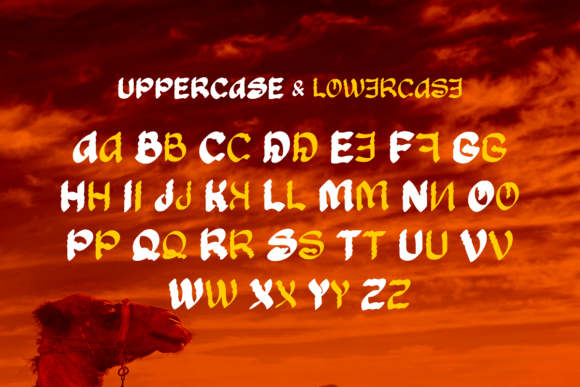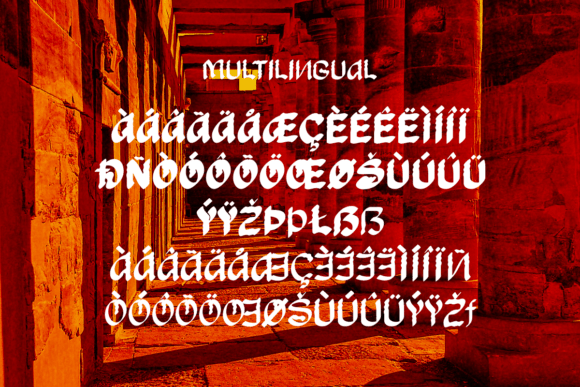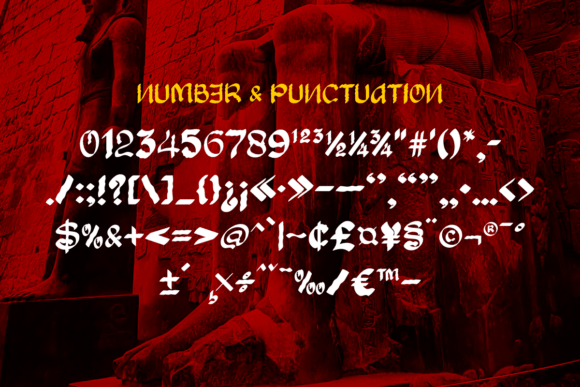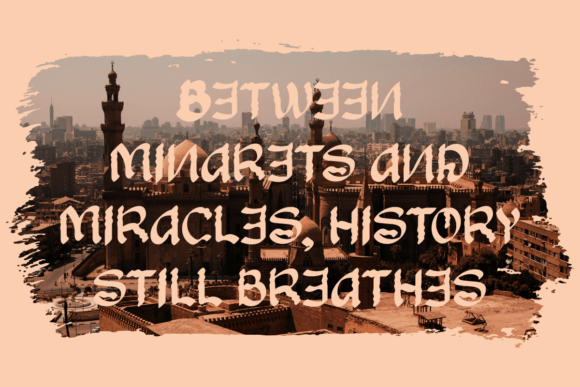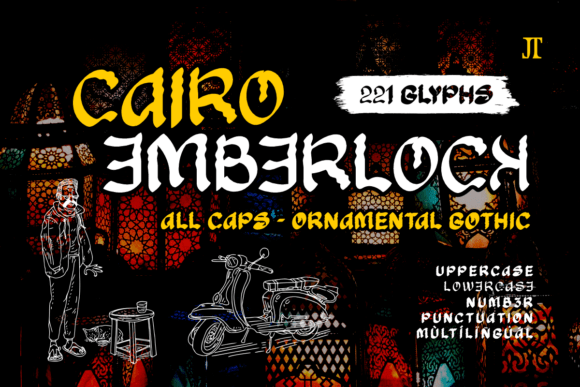
Cairo Emberlock Font: Unleash the Mystique of Ancient Egypt in Your Designs
Are you a designer seeking a font that embodies the essence of mystique and power? Look no further than Cairo Emberlock, a bold ornamental Gothic display font that combines the allure of ancient Egypt with modern experimental flair. In this article, we’ll delve into the unique features of Cairo Emberlock and explore its endless possibilities in various design applications.
The Inspiration Behind Cairo Emberlock
Cairo Emberlock is more than just a font – it’s an experience. Inspired by the rich history and mystique of Egypt, this typeface brings the ancient desert character to life. The designers behind Cairo Emberlock aimed to create a font that not only pays homage to the past but also pushes the boundaries of modern typography. The result is a bold, ornamental Gothic display font that exudes confidence and drama.
Key Features of Cairo Emberlock
So, what makes Cairo Emberlock stand out from the rest? Here are some of its key features:
• Expressive Curves: Cairo Emberlock boasts expressive curves that add a touch of elegance and sophistication to any design.
• Handcrafted Details: The font’s handcrafted details give it a unique, artisanal feel that’s perfect for designers seeking a more personalized look.
• Dramatic Shapes: Cairo Emberlock’s dramatic shapes add a sense of drama and flair to any design, making it perfect for attention-grabbing headlines and titles.
• Mystical Egyptian Energy: The font’s infusion with mystical Egyptian energy gives it an otherworldly feel that’s sure to captivate audiences.
Design Applications for Cairo Emberlock
Cairo Emberlock is an incredibly versatile font that can be used in a wide range of design applications, including:
• Branding: Use Cairo Emberlock to create bold, eye-catching logos that make a lasting impression.
• Posters: Add a touch of drama and flair to your posters with Cairo Emberlock’s expressive curves and dramatic shapes.
• Album Covers: Give your music releases a legendary look with Cairo Emberlock’s unique fusion of Middle Eastern ambience and Gothic elegance.
• Game Titles: Make your game titles stand out with Cairo Emberlock’s bold, attention-grabbing design.
• Book Covers: Add a touch of mystique and power to your book covers with Cairo Emberlock’s ancient desert character and modern experimental flair.
• Social Media Graphics: Use Cairo Emberlock to create visually striking social media graphics that capture audiences’ attention.
• Decorative Typography: Experiment with Cairo Emberlock’s handcrafted details and dramatic shapes to create stunning decorative typography projects.
Why Choose Cairo Emberlock?
With so many fonts available, why choose Cairo Emberlock? Here are just a few reasons:
• Unique Design: Cairo Emberlock’s fusion of Middle Eastern ambience, Gothic elegance, and modern experimental flair makes it a truly one-of-a-kind font.
• High-Quality Design: The font’s handcrafted details and dramatic shapes ensure a high-quality design that’s perfect for professional applications.
• Versatility: Cairo Emberlock’s versatility makes it suitable for a wide range of design applications, from branding and posters to album covers and social media graphics.
In conclusion, Cairo Emberlock is a bold, ornamental Gothic display font that’s perfect for designers seeking a unique and powerful design solution. With its expressive curves, handcrafted details, and dramatic shapes, this font is sure to make a lasting impression in any design application. Whether you’re working on a branding project, poster, album cover, or social media graphic, Cairo Emberlock is the perfect choice for adding a touch of mystique and power to your designs.